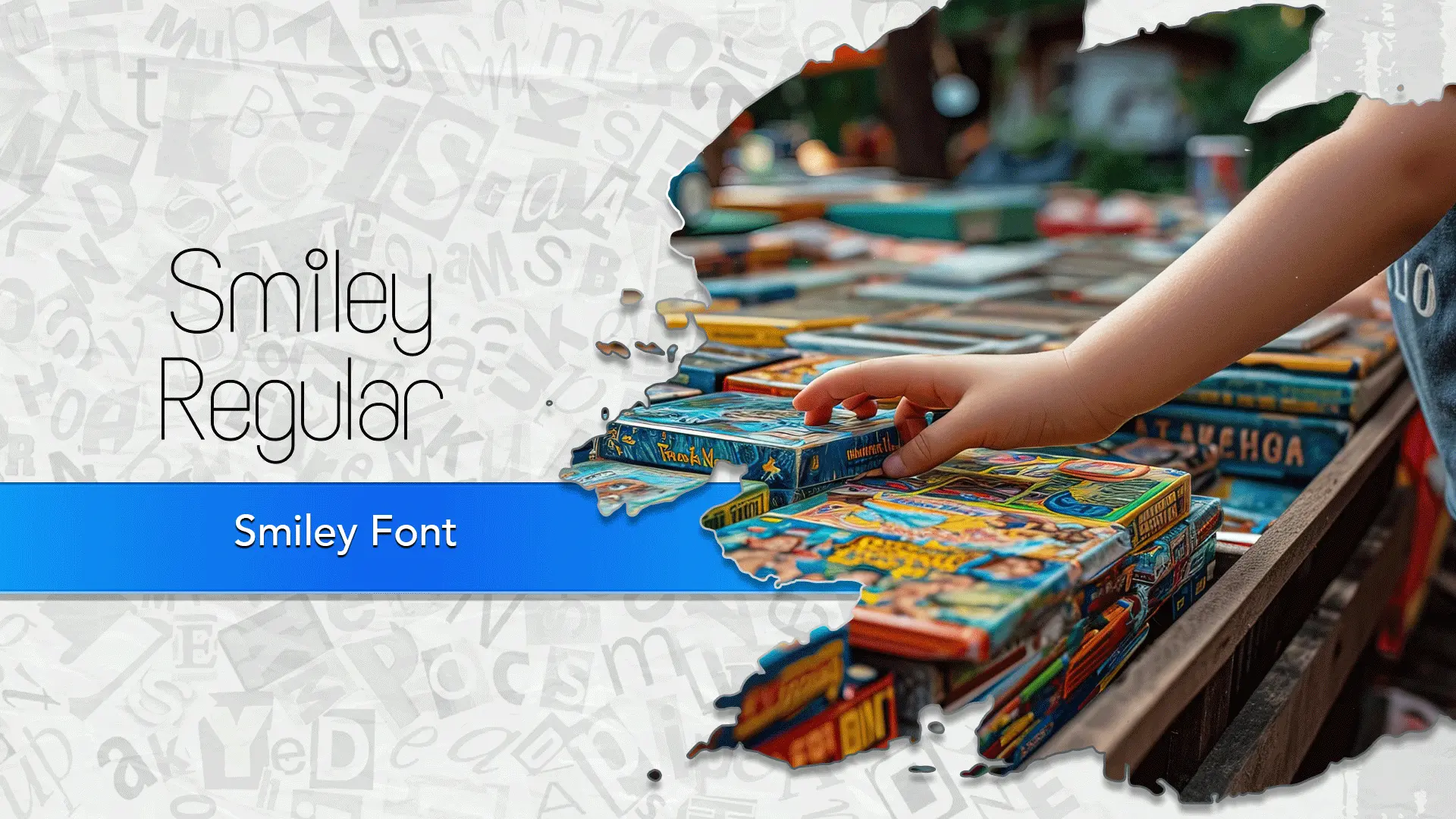
The Smiley font family may be ideal for you if you enjoy working on an artistic design project. The lively, expressive look of this typeface, which was created by Steve Gardner, makes it ideal for Children's Brands and Materials(Kids' product packaging, Children's book titles/covers, Playgroup or nursery branding, Birthday party invitations and decorations) and other light-hearted visual projects.
Regular, Regular are the two primary font styles of the Smiley font family. You may build dynamic, visually appealing text layouts with the distinct flair that each style offers. With crisp, readable lines and a relaxed tone.